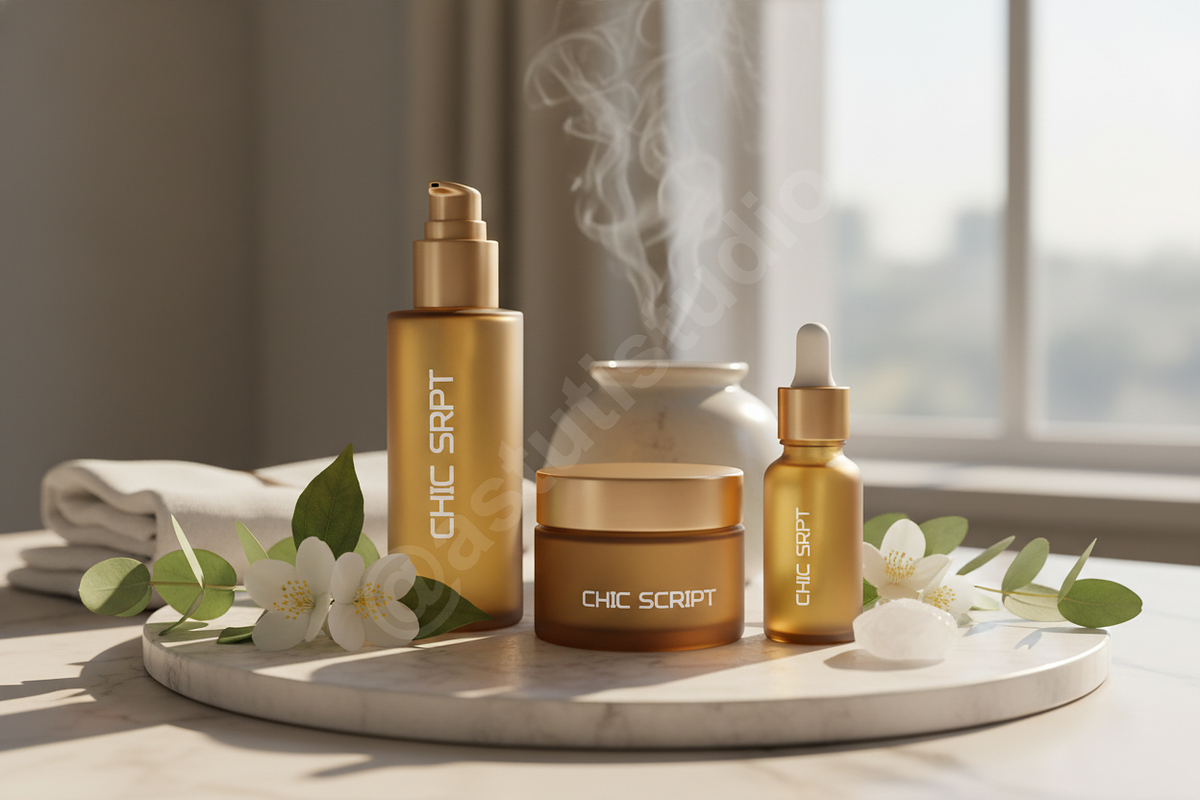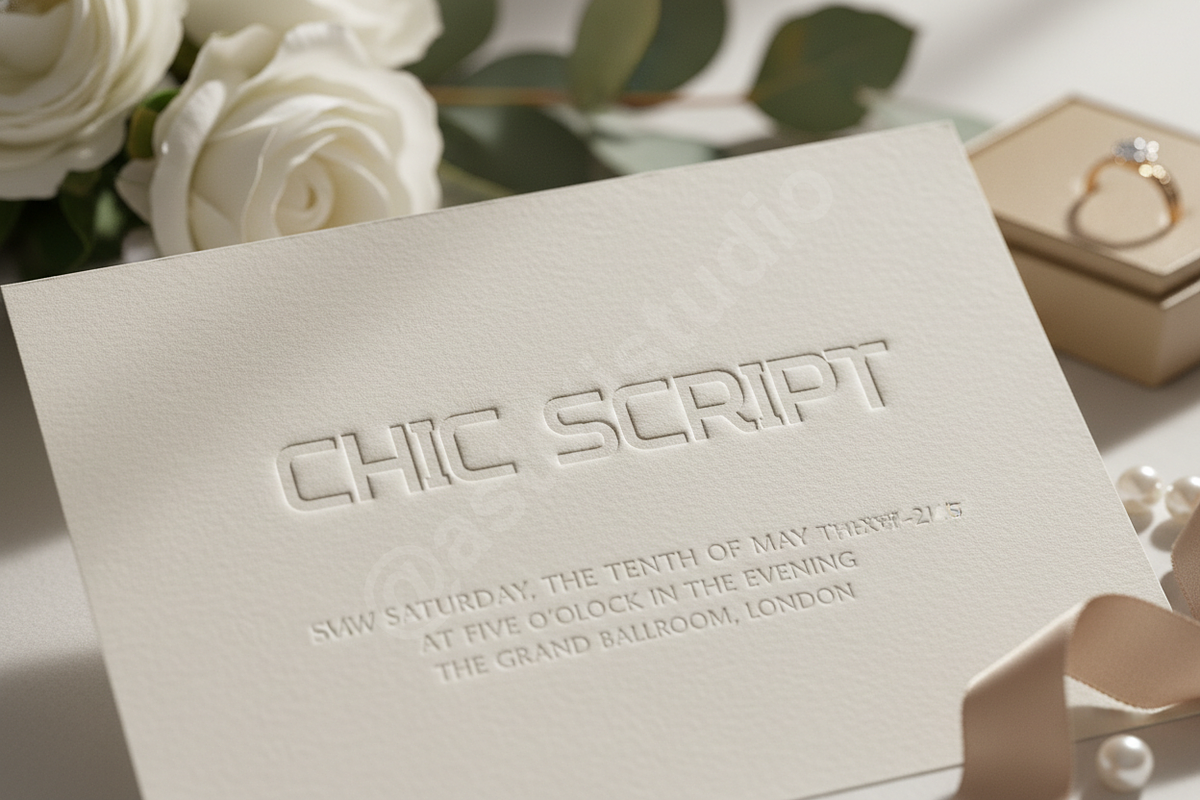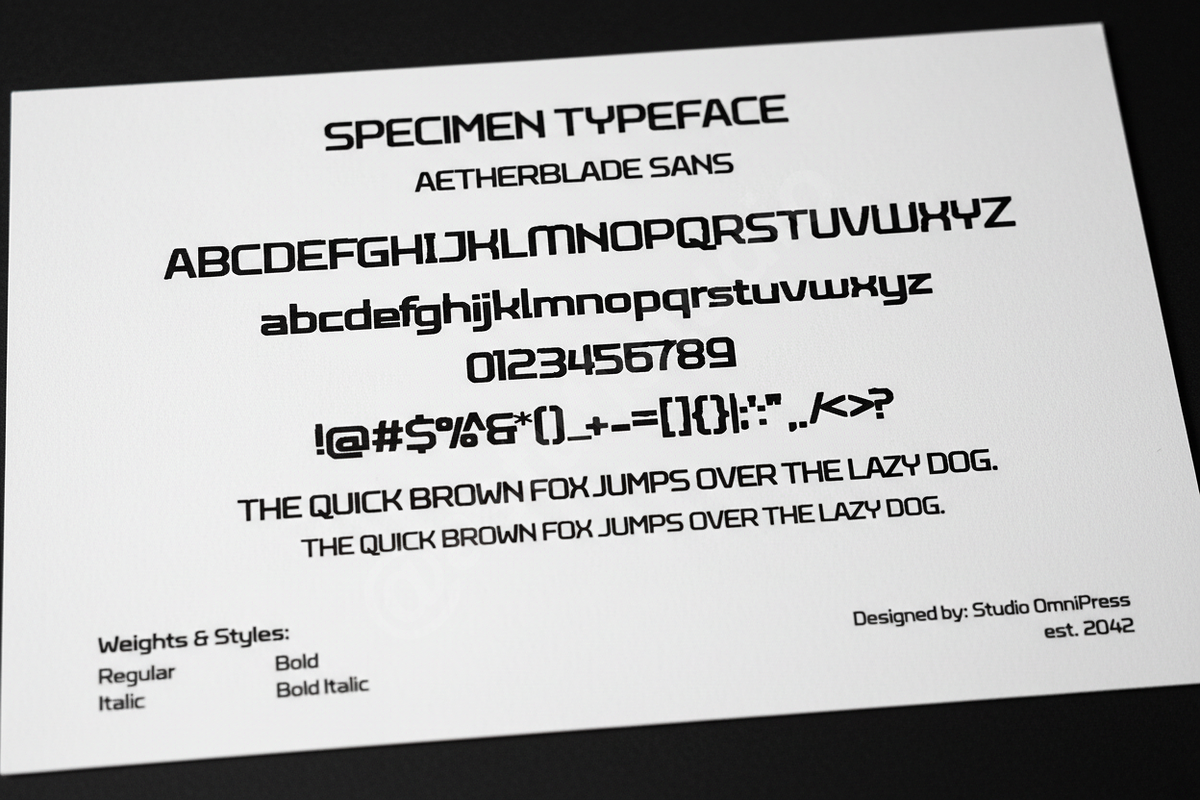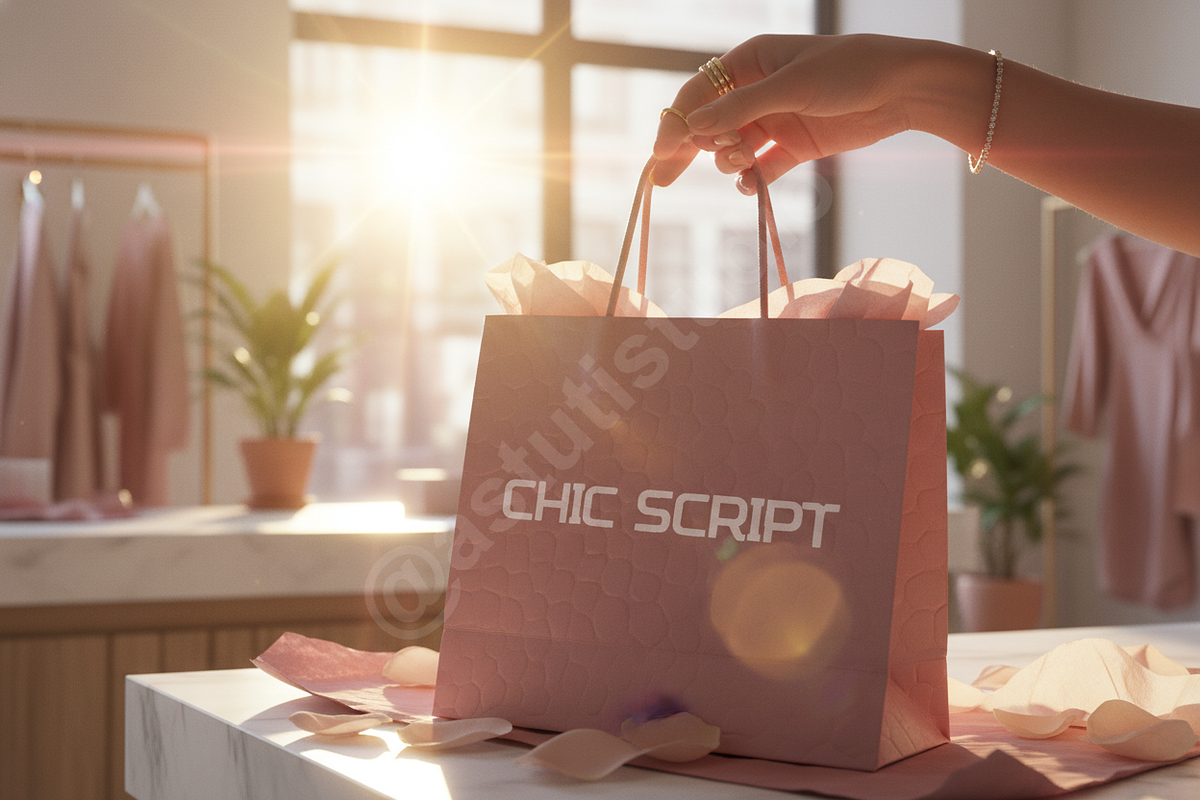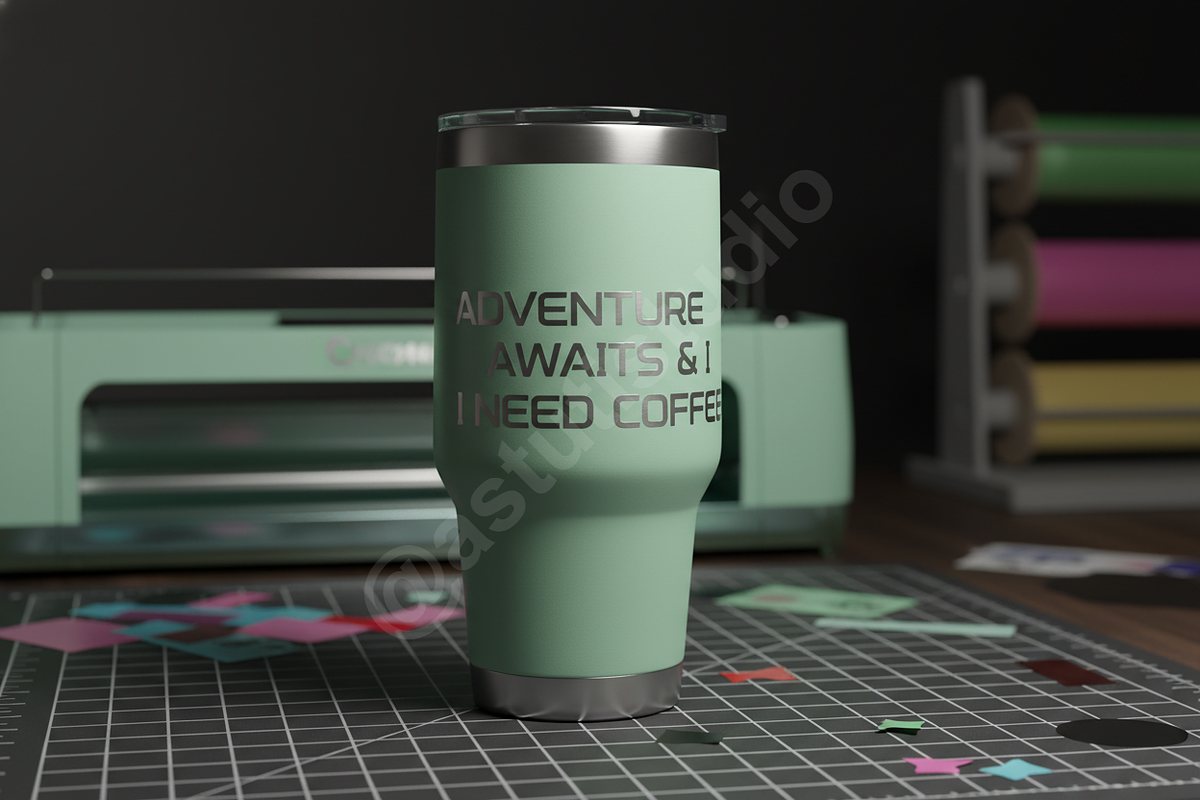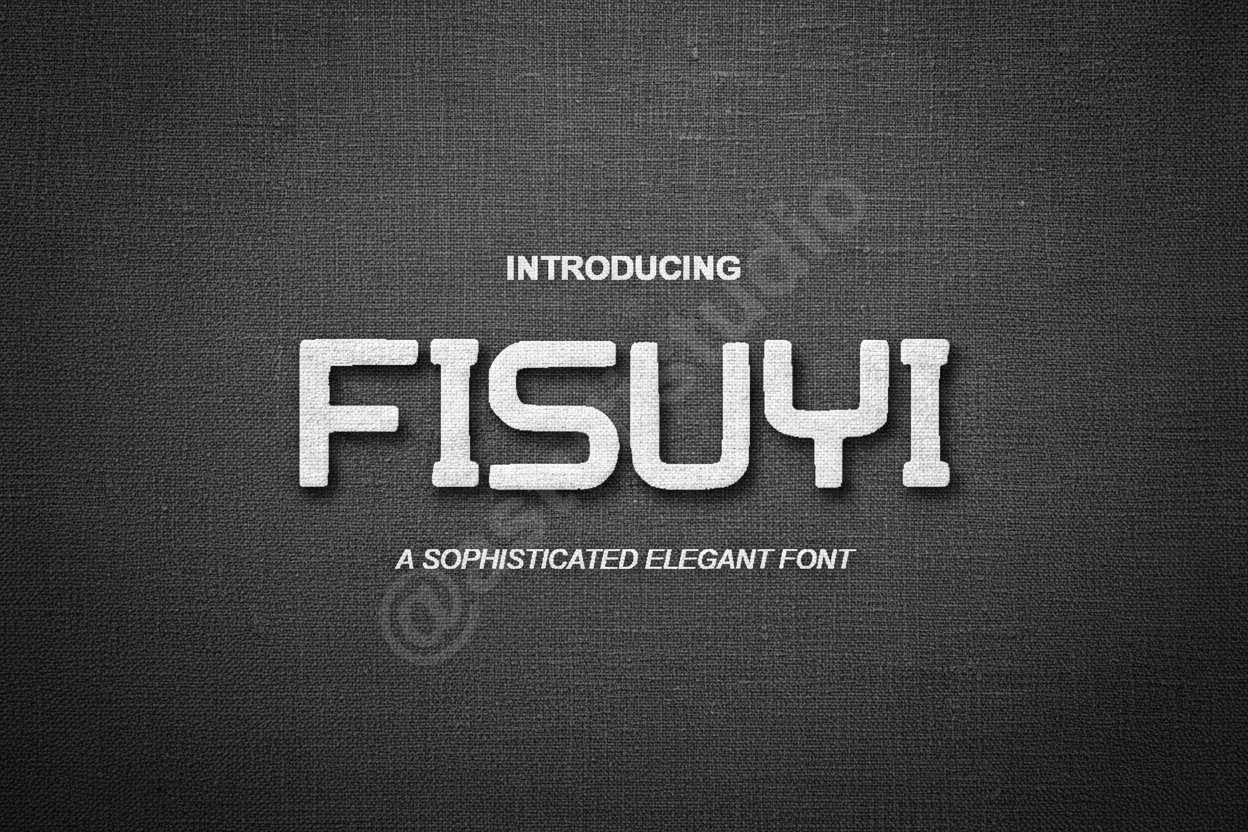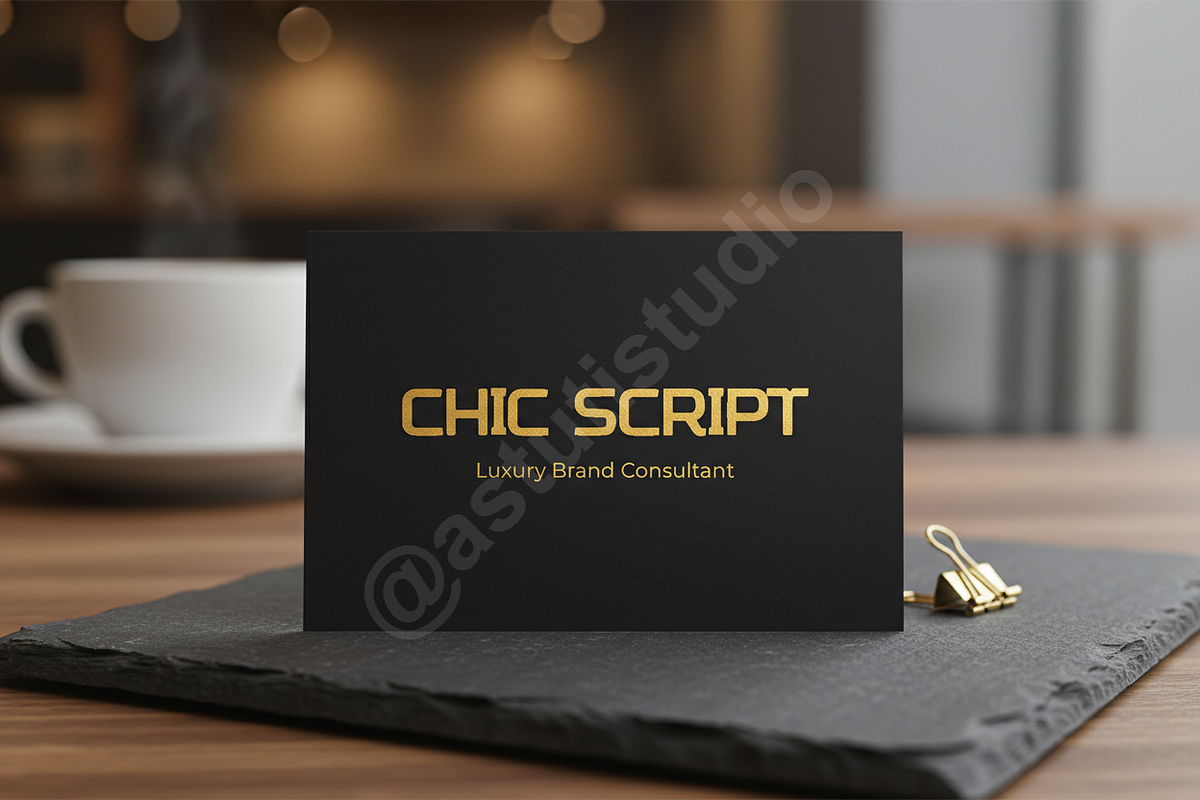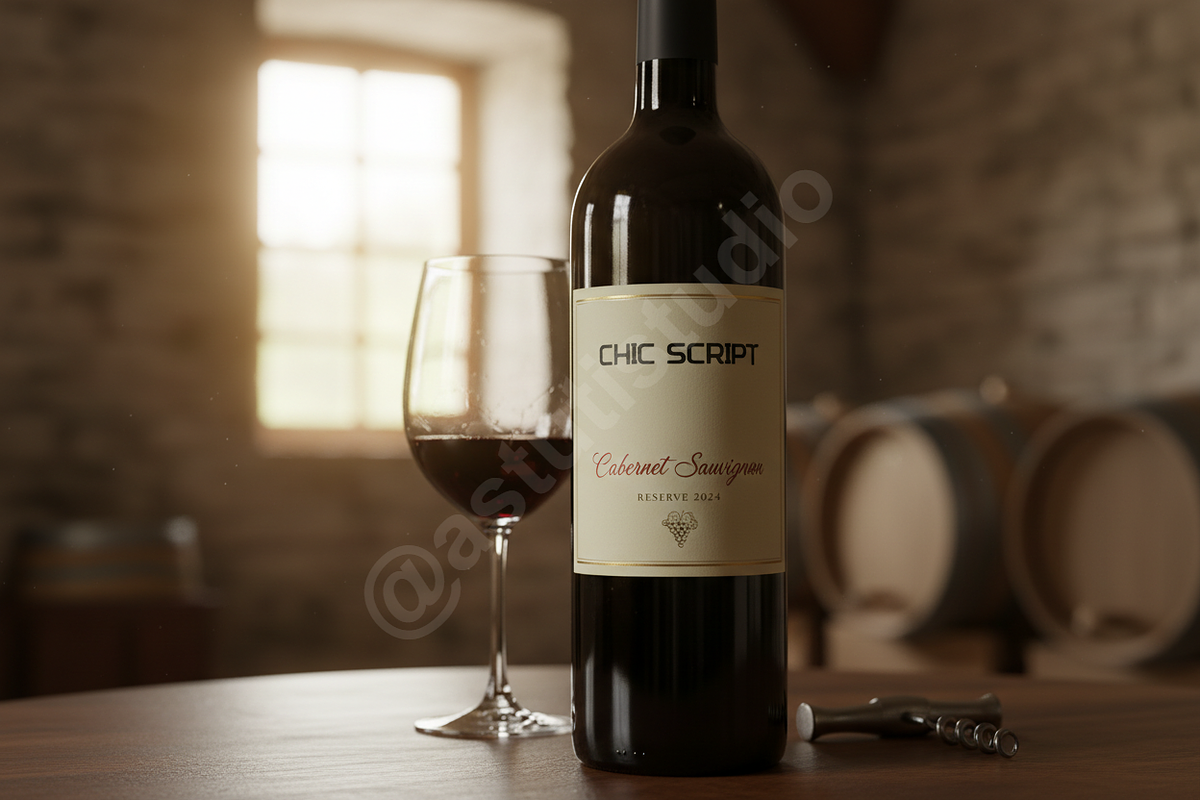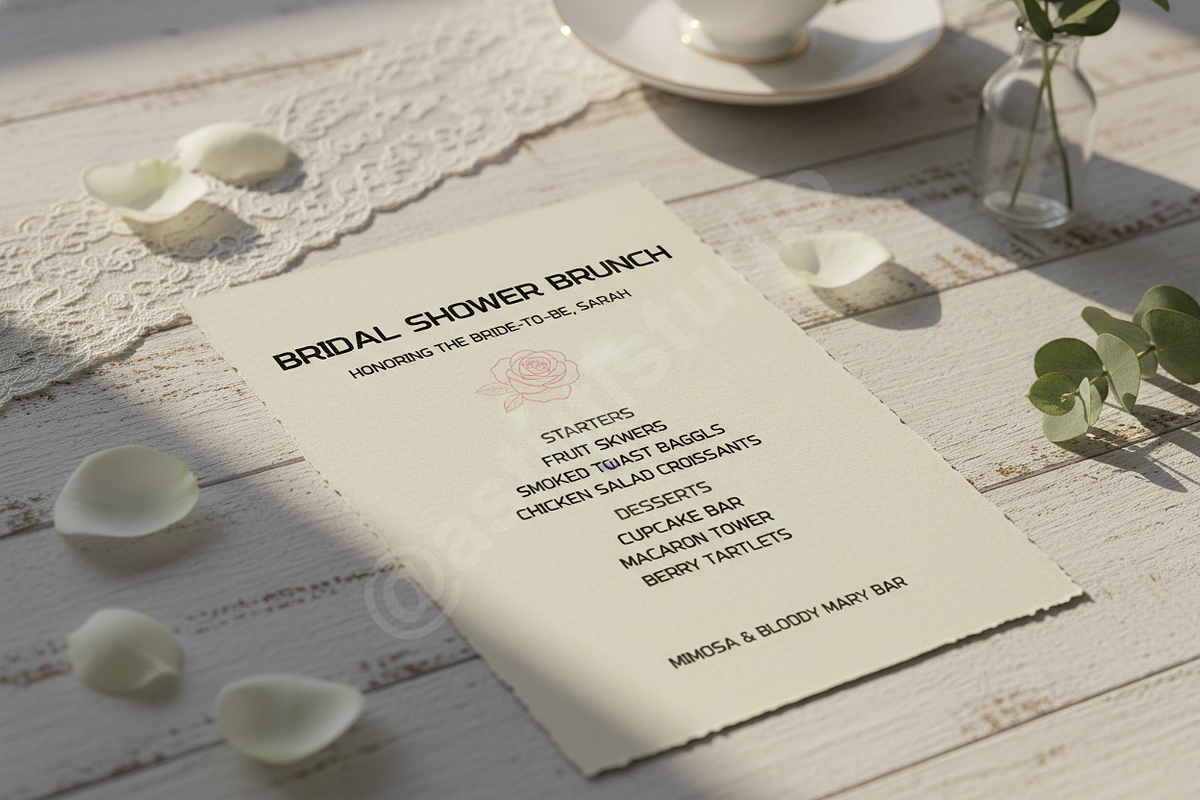
Fisuyi: A Refined Serif Font - Luxur
Introducing Fisuyi, a meticulously crafted serif font designed to elevate your projects with an air of sophisticated elegance. Born from a dedication to timeless aesthetics and modern versatility, Fisuyi is the quintessential choice for luxury branding, high-end editorial layouts, and captivating social media presence. Its graceful curves and precise lines communicate a premium studio quality, ensuring your designs resonate with distinction and refined charm.
Key Features: • Elegant Serif Design: A classic yet contemporary aesthetic. • Versatile Application: Ideal for headlines, body text, and impactful display use. • Extensive Ligatures & Alternates: Enhance typography with stylistic variations for unique letter combinations. • Multilingual Support: Broad language coverage to reach a global audience. • Punctuation & Numerals: Comprehensive character set for professional output.